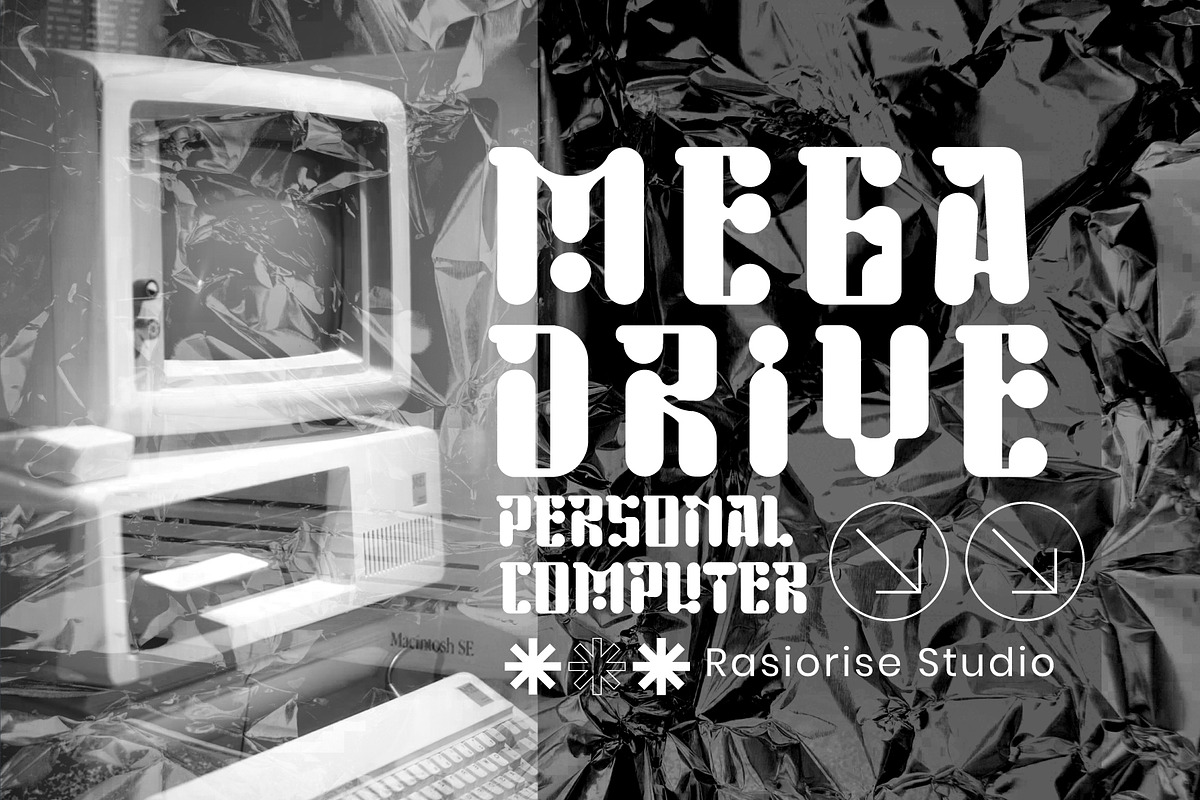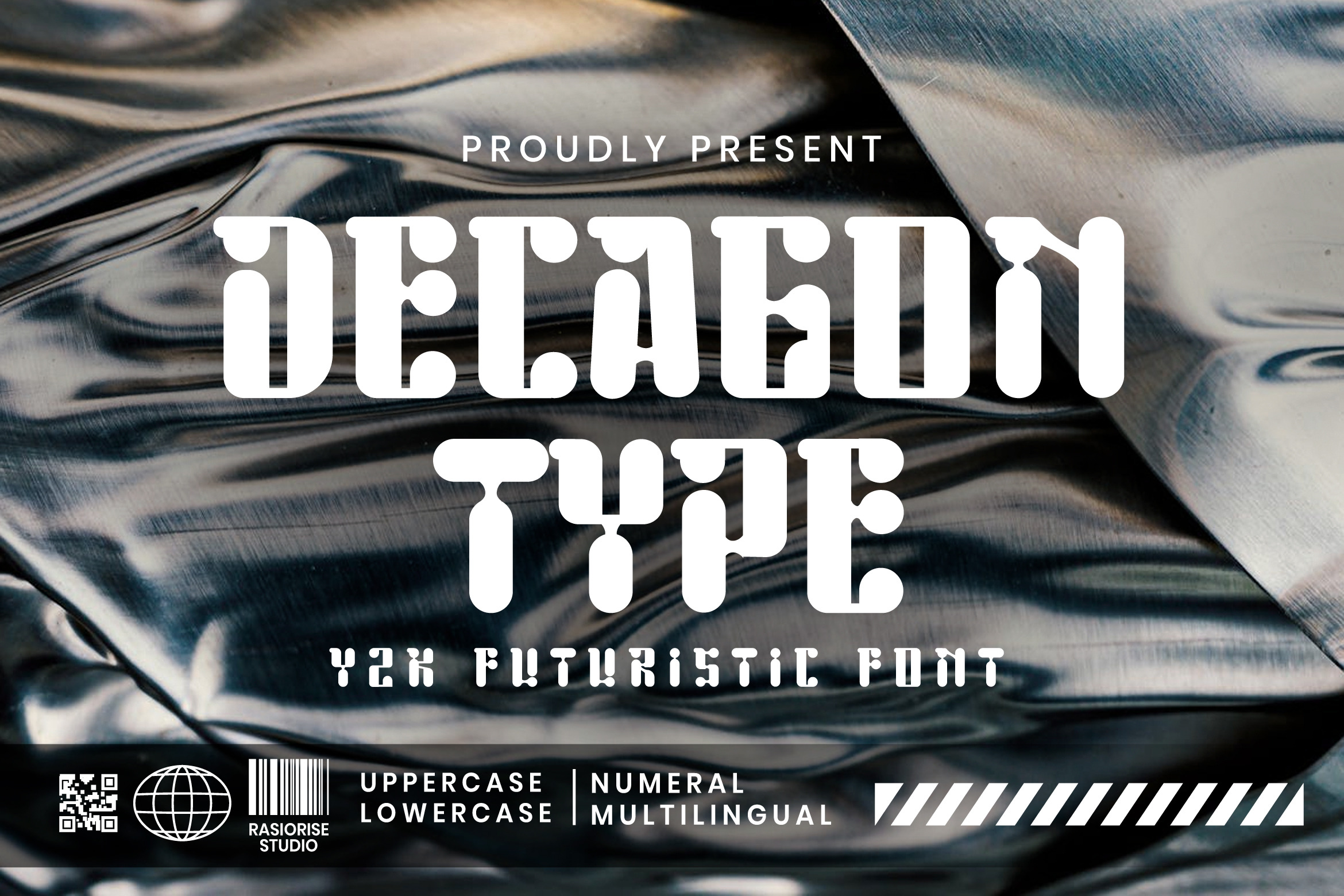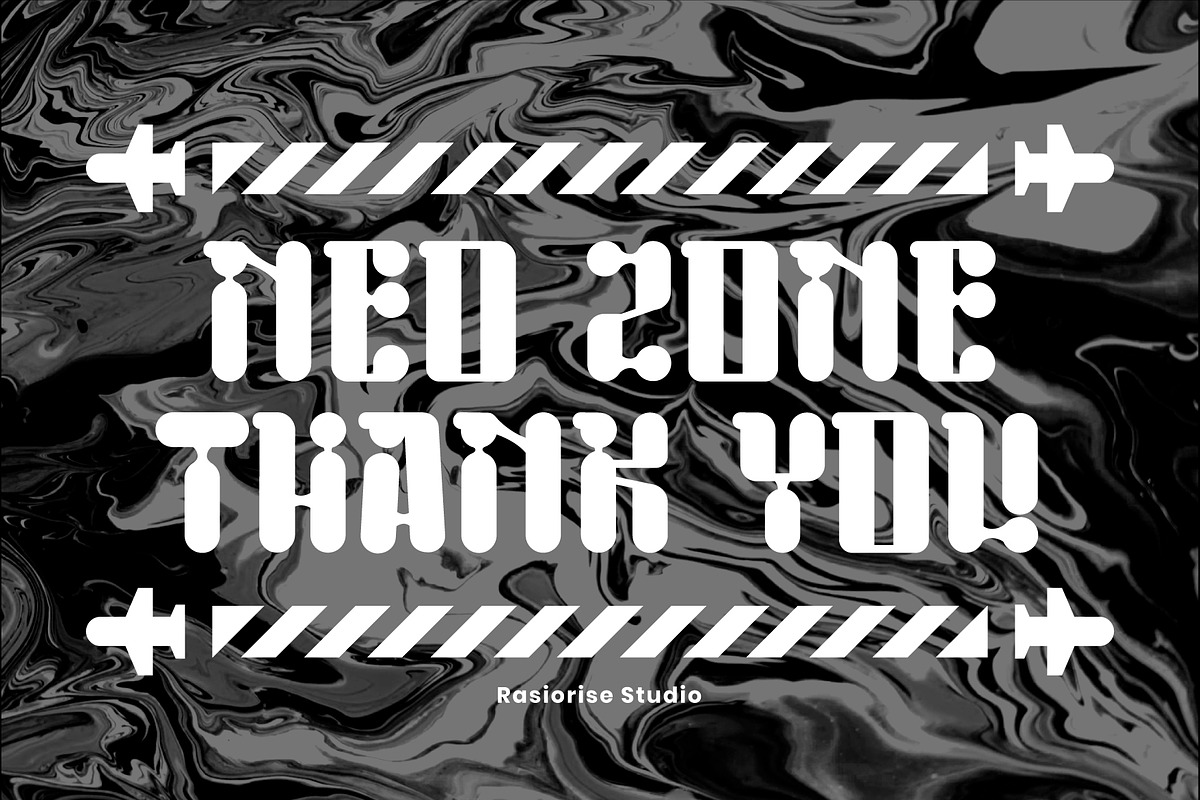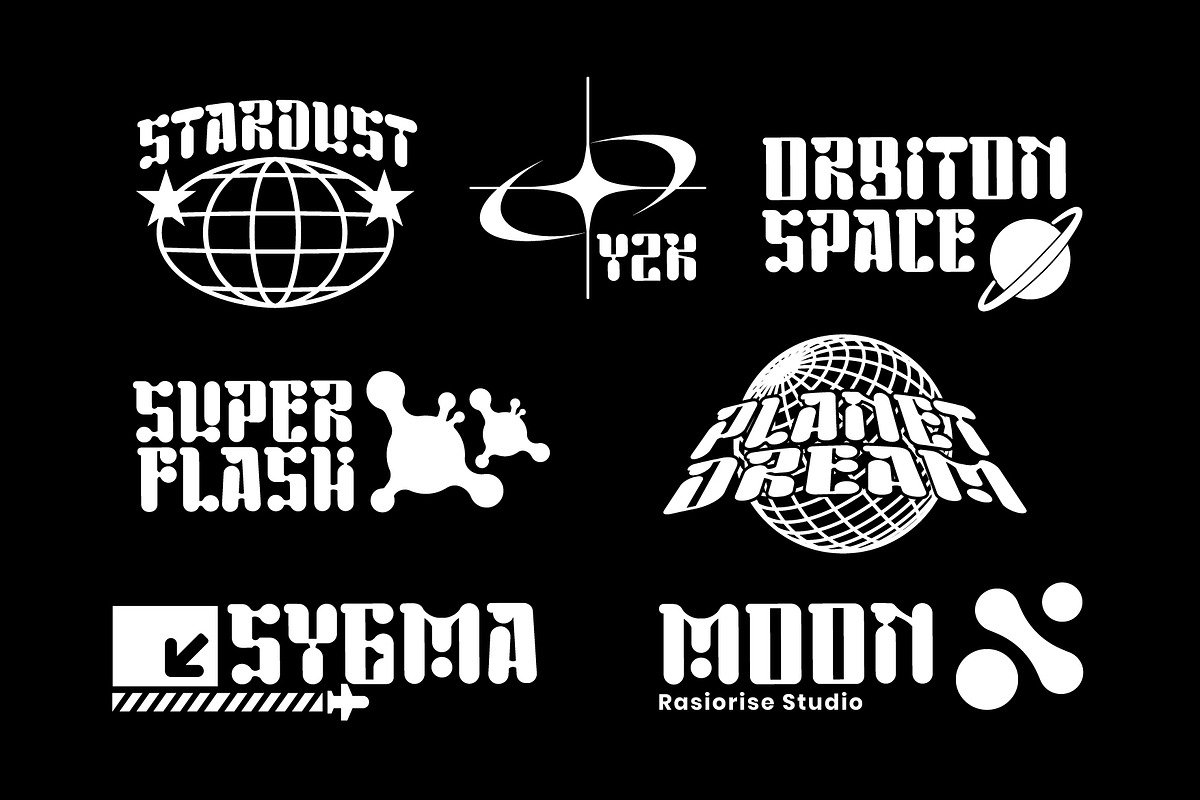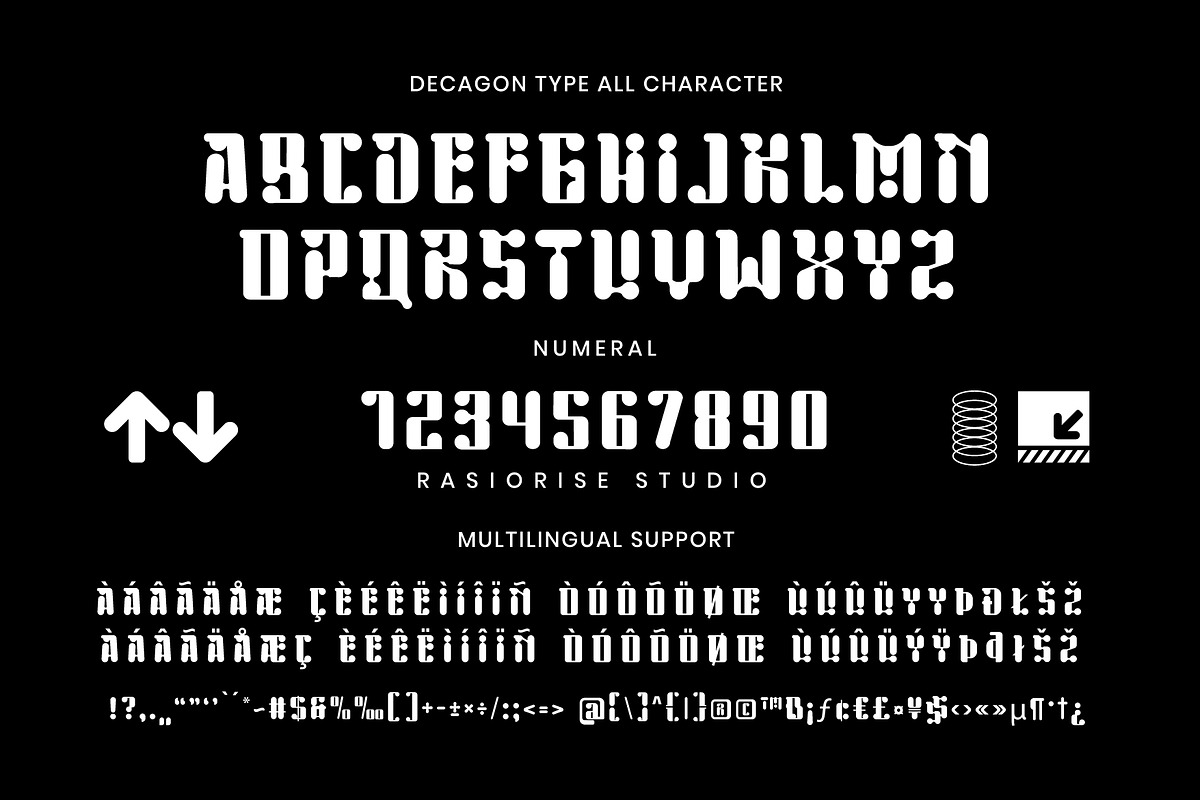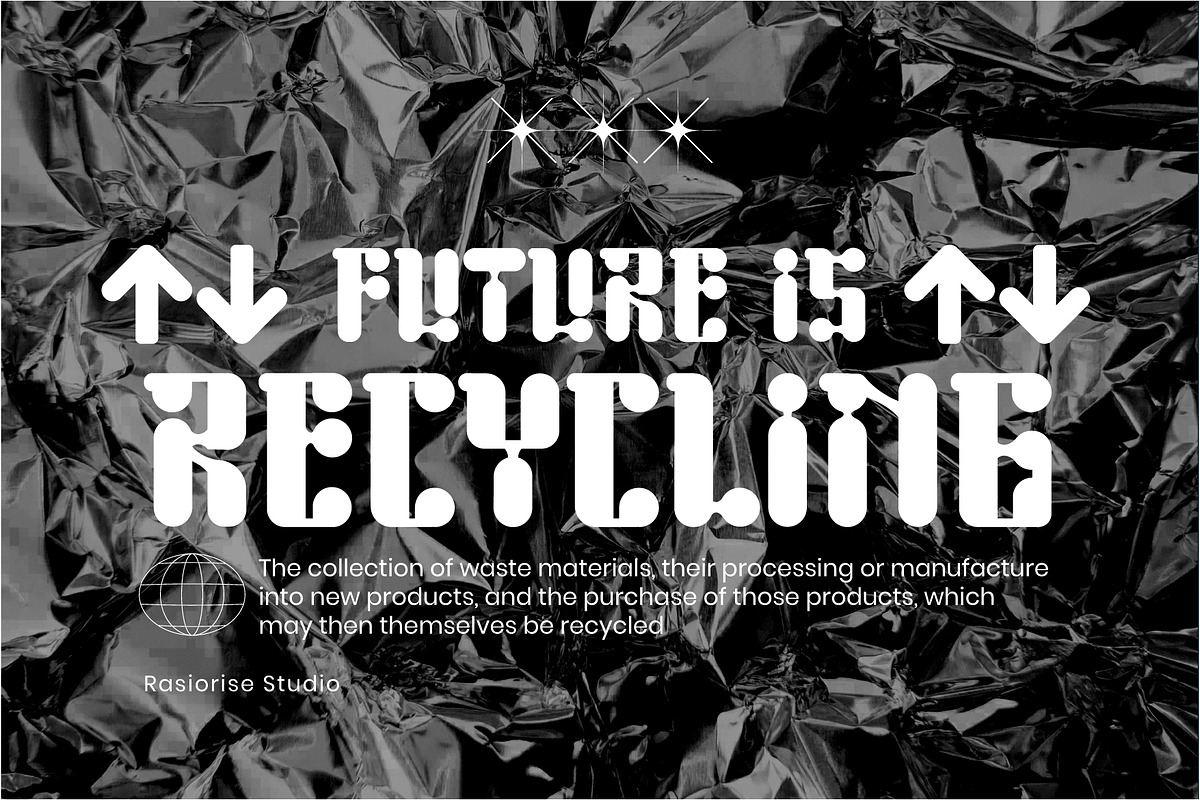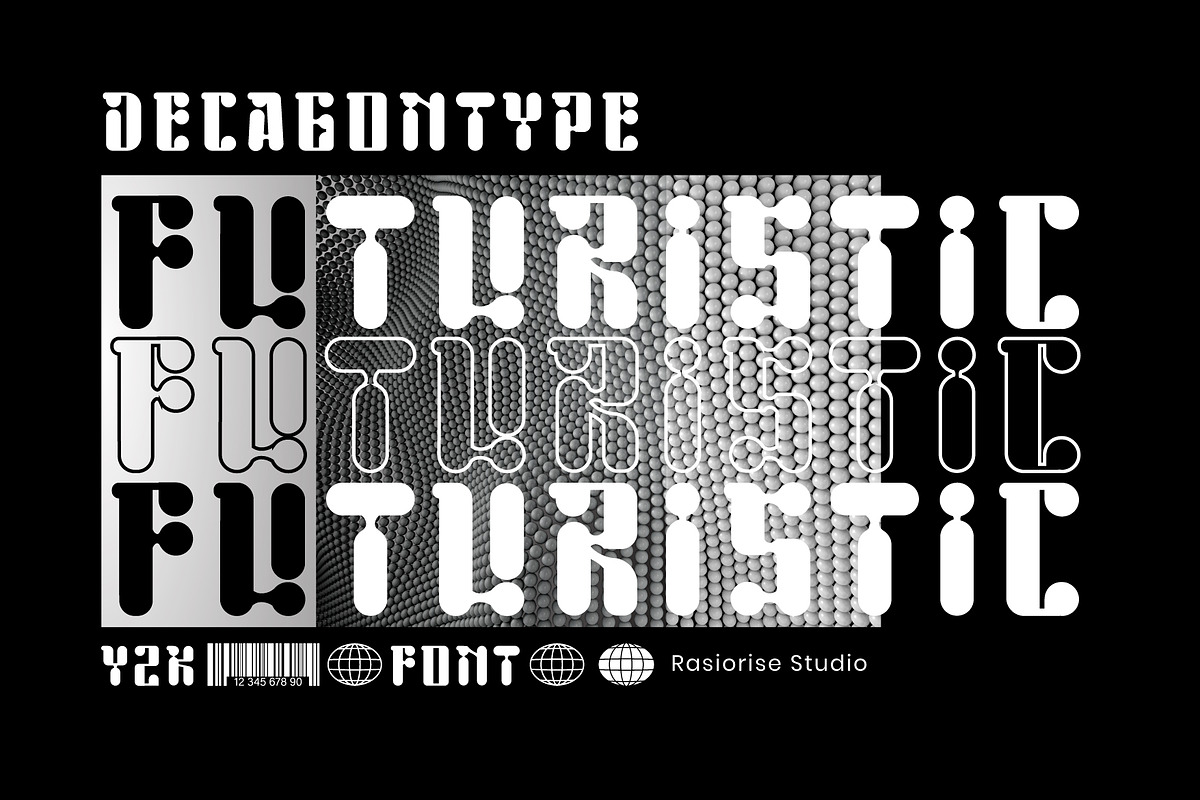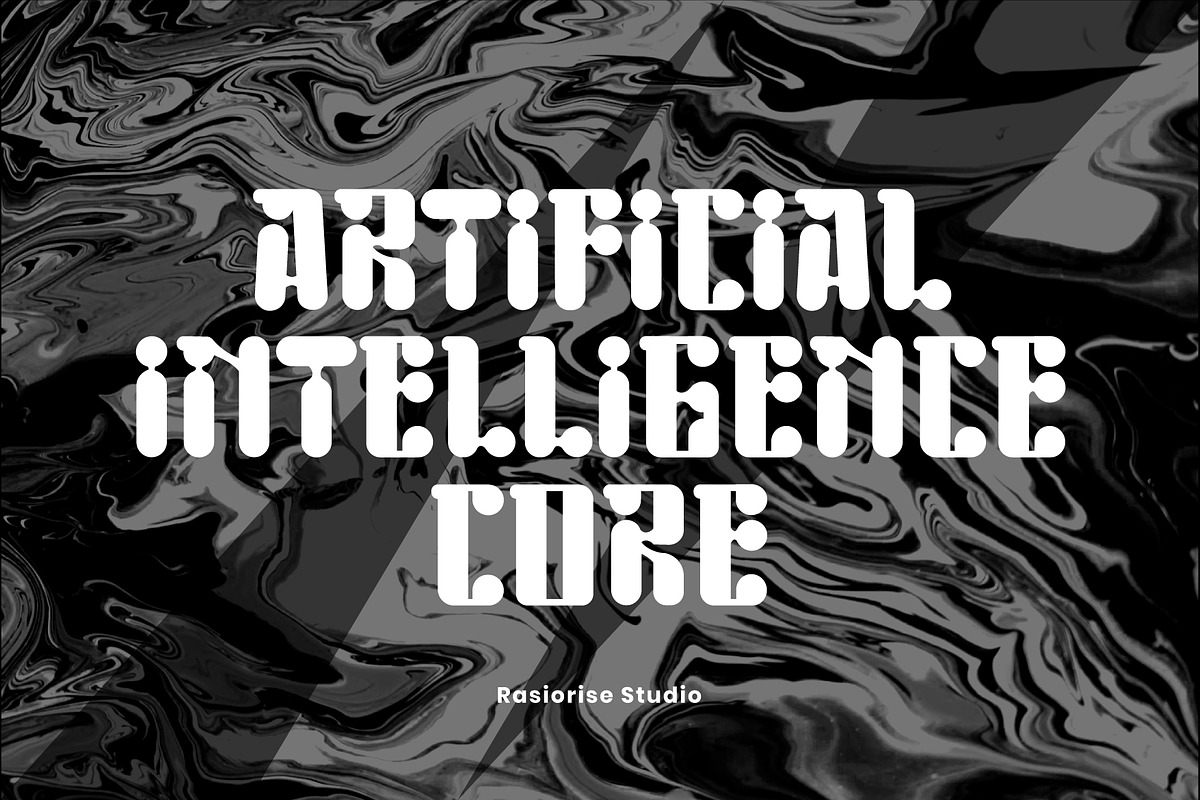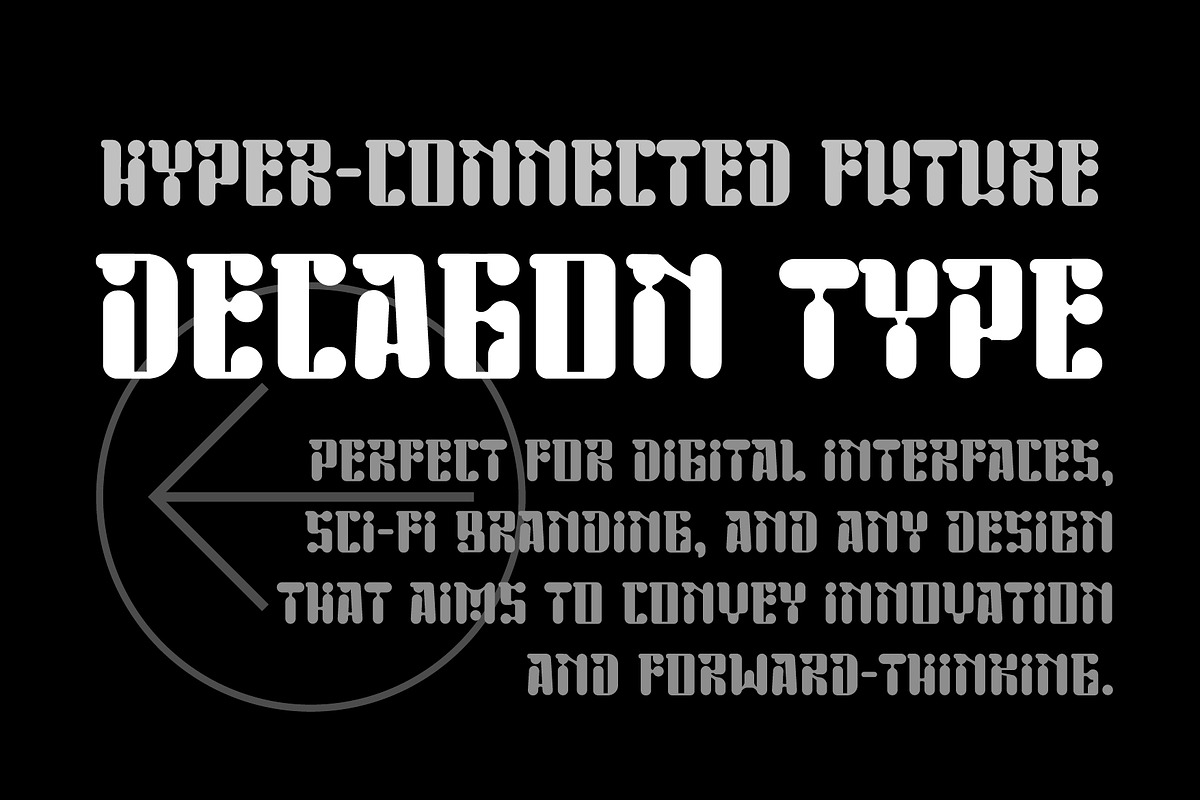
Decagon Type a Futuristic Font
Hello Everyone! The font Decagon Type is now available for people searching for a futuristic Y2K font. The Sci-Fi, Cyberpunk, Hyperbeast, and Mecha font styles and Decagon shape served as inspiration for this design. included as the Uppercase and lowercase regular character, Numeral and multilingal support, were combined to give the typeface a bolder appearance.